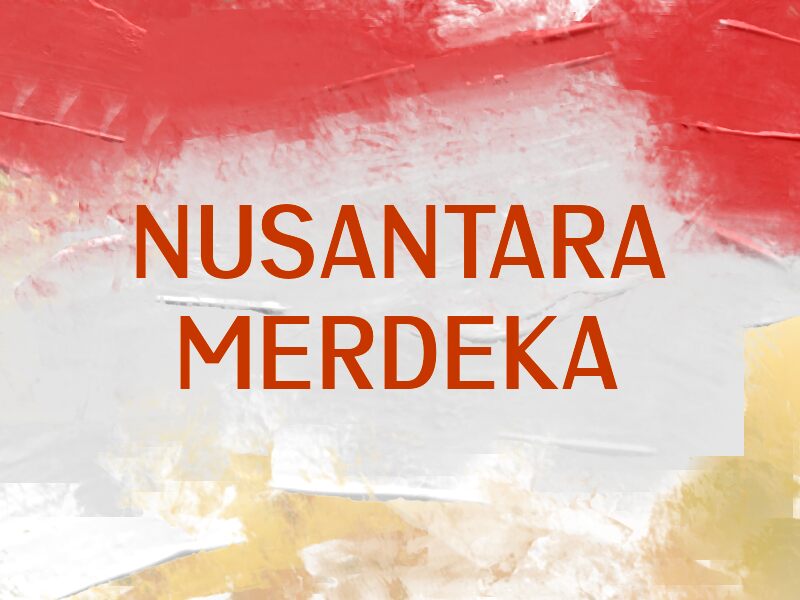
Nusantara Merdeka font by wepfont.com is a free sans-serif font that beautifully balances modernity and tradition. With a clean and minimalist design, it seamlessly blends into any project requiring a contemporary yet professional print and digital feel. The typeface can be noticed for its functional and versatile nature, making it suitable for a broad range of uses.
The font is ideal for professional tasks, advertisements, websites, social media, greeting cards, banners, posters, titles, magazines, covers, books, logos, or labels. All visual designs will benefit from its straightforward appearance.
Nusantara Merdeka is a captivating free font that embodies a unique blend of contemporary and traditional design elements. This typeface is perfect for a variety of creative projects, including branding, advertising, and any application where you want to make a statement.
Its elegant curves and distinctive features set it apart, making it a great choice for designers seeking to elevate their work. With its versatility, Nusantara Merdeka is suitable for both digital and print use, ensuring that your text stands out whether on a screen or in a publication.